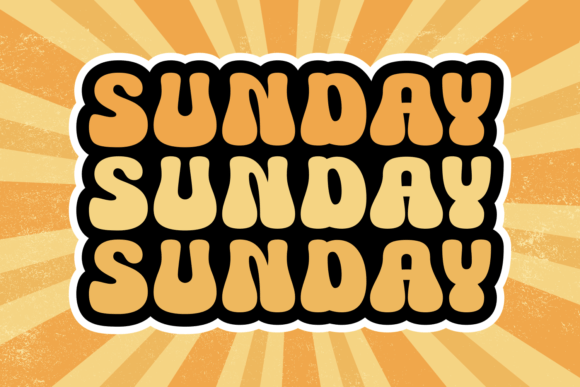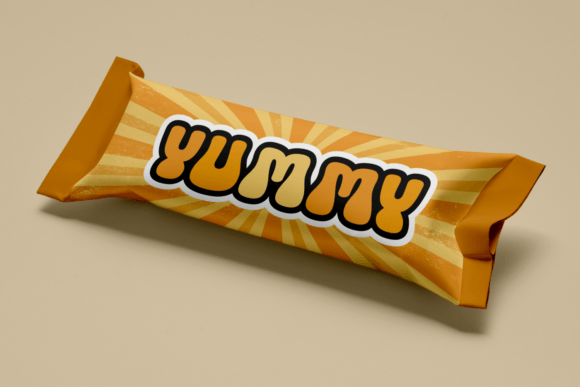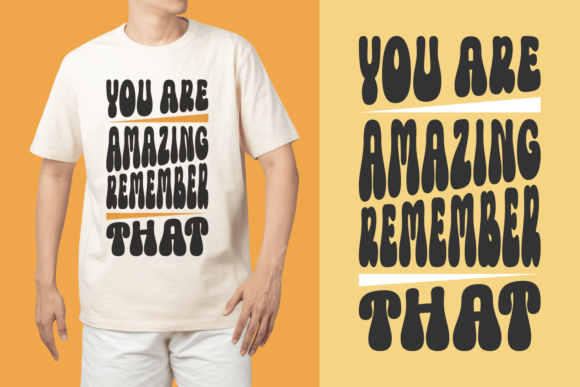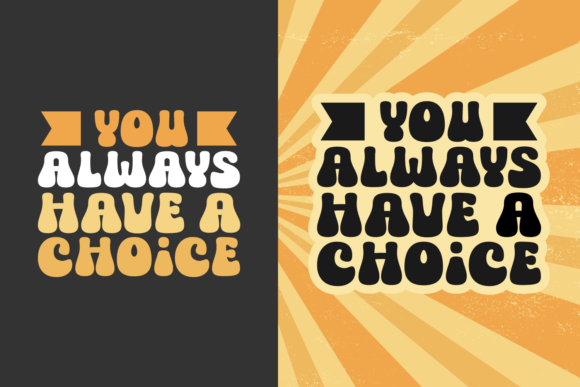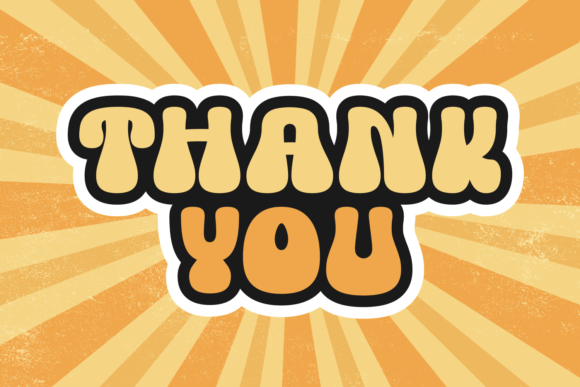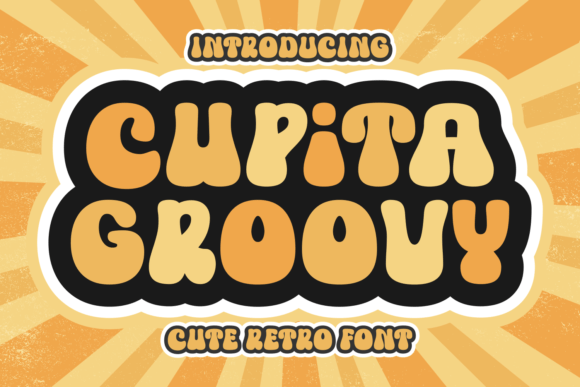
Cupita Groovy Font: Elevate Your Designs with a Touch of Retro Elegance
In the world of typography, fonts play a crucial role in conveying the tone and aesthetic of a design. For those seeking a stylish, versatile, and playful font that embodies the essence of retro charm, Cupita Groovy is an excellent choice. This exquisite display font is perfect for a wide range of applications, from greeting cards and headlines to branding and advertising materials.
The Allure of Cupita Groovy
Cupita Groovy is more than just a font; it’s a design statement. Its retro appeal is instantly captivating, evoking a sense of nostalgia and romance. The font’s unique blend of classic and modern elements makes it a standout in the world of typography. Whether you’re a designer looking to add a touch of whimsy to your project or a crafter seeking to create handmade cards and gifts with a personal touch, Cupita Groovy is the perfect companion.
Key Features of Cupita Groovy
- Versatility: Cupita Groovy is designed to be versatile, making it suitable for a wide spectrum of applications. From digital designs to print materials, this font adapts seamlessly to various mediums.
- Playful yet Elegant: The font strikes the perfect balance between playfulness and elegance. Its groovy retro vibe adds a fun twist to any design, while its refined lines ensure it remains sophisticated and classy.
- Easy to Read: Despite its decorative nature, Cupita Groovy maintains excellent readability. This makes it an ideal choice for headlines, titles, and short texts where visual impact is crucial.
- Customizable: As a digital font, Cupita Groovy can be easily manipulated to fit your design needs. Experiment with different sizes, colors, and styles to create a unique look that complements your project.
Applications of Cupita Groovy
The possibilities with Cupita Groovy are endless. Here are a few ideas to get you started:
- Greeting Cards: Add a personal touch to your handmade cards with Cupita Groovy. Its romantic and playful vibe makes it perfect for occasions like Valentine’s Day, weddings, and anniversaries.
- Headlines and Titles: Use Cupita Groovy to create eye-catching headlines and titles for your blog posts, articles, or social media graphics. Its stylish appearance is sure to grab attention.
- Branding and Packaging: Incorporate Cupita Groovy into your brand’s visual identity to stand out from the competition. Its unique retro flair can add a memorable touch to your packaging and marketing materials.
- Digital Designs: From website headers to social media posts, Cupita Groovy can elevate your digital designs with its distinctive charm.
Tips for Using Cupita Groovy
To make the most of Cupita Groovy, consider the following tips:
- Pair with Simplicity: Balance the playfulness of Cupita Groovy with simpler fonts in your design. This contrast will ensure your message remains clear and visually appealing.
- Experiment with Colors: Don’t be afraid to try out different colors and gradients with Cupita Groovy. Its retro vibe pairs well with bold and pastel colors alike.
- Play with Sizes: Use Cupita Groovy in various sizes to create visual hierarchy in your designs. Larger sizes can be used for headlines, while smaller sizes can be used for supporting text.